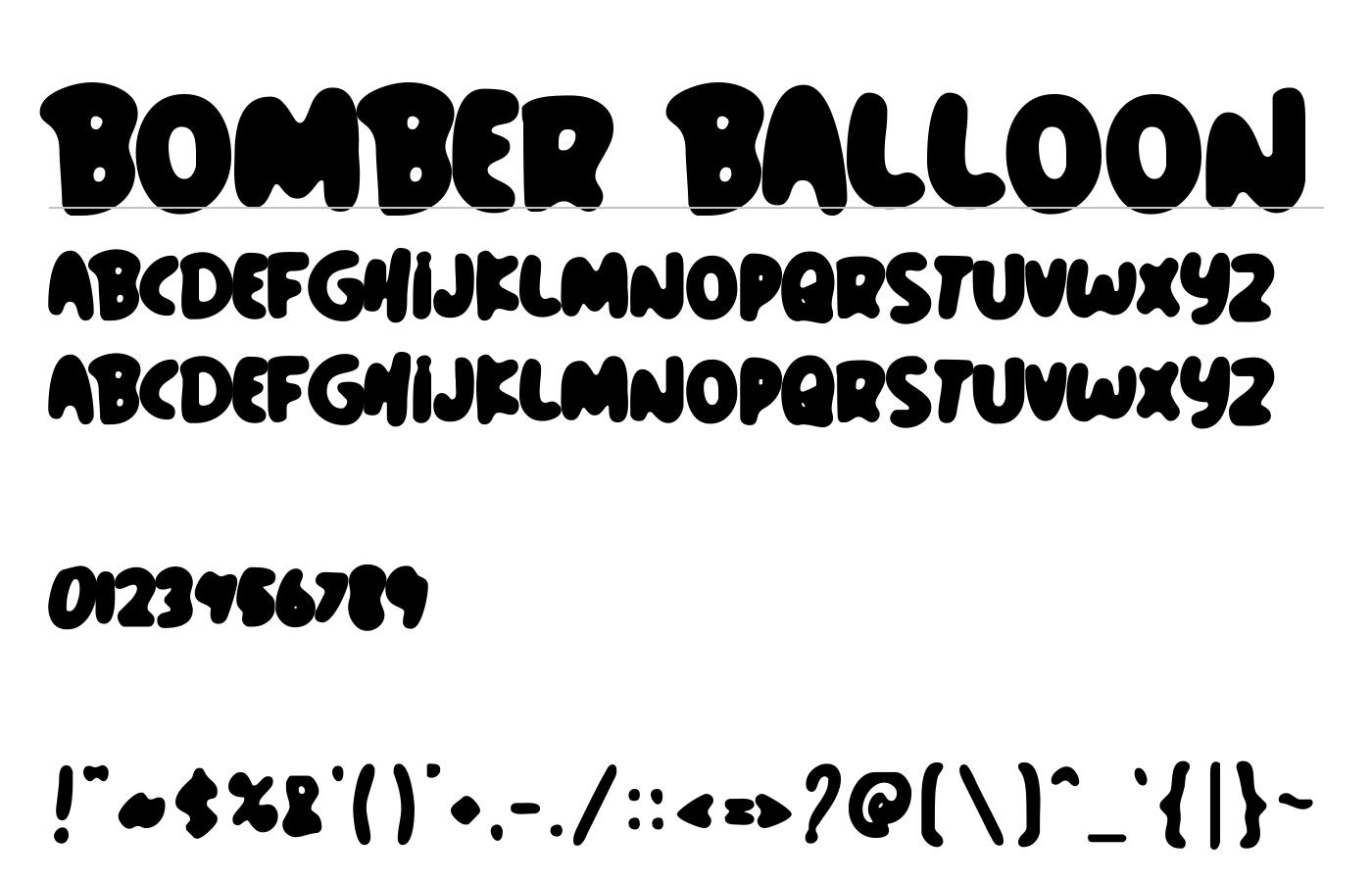
Bomber Balloon is a playful, bold display font that features thick, rounded letterforms with a bubbly and soft appearance. Its chunky, irregular shapes convey a fun and informal vibe, making it ideal for creative projects, children’s designs, and casual branding that aims to grab attention with a friendly, approachable personality. This font works best in headlines, logos, and posters where a lively, whimsical look is desired.
Bomber Balloon Font